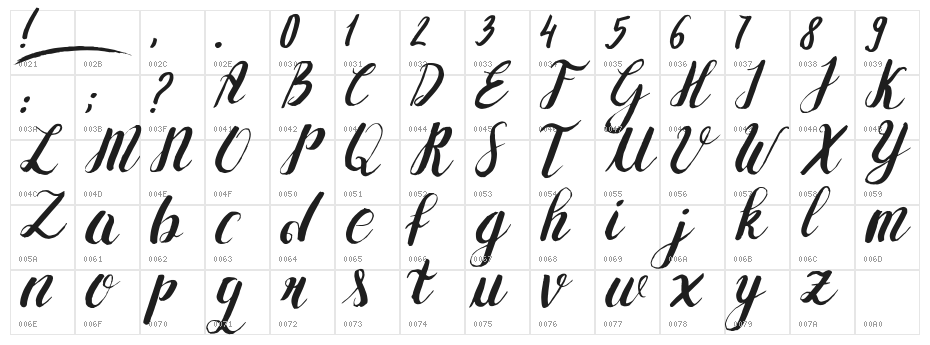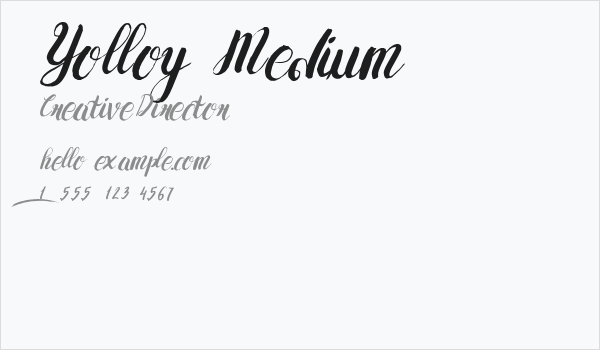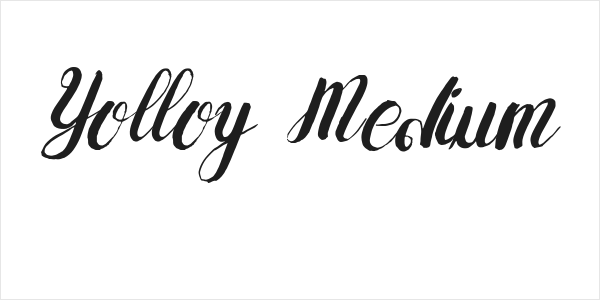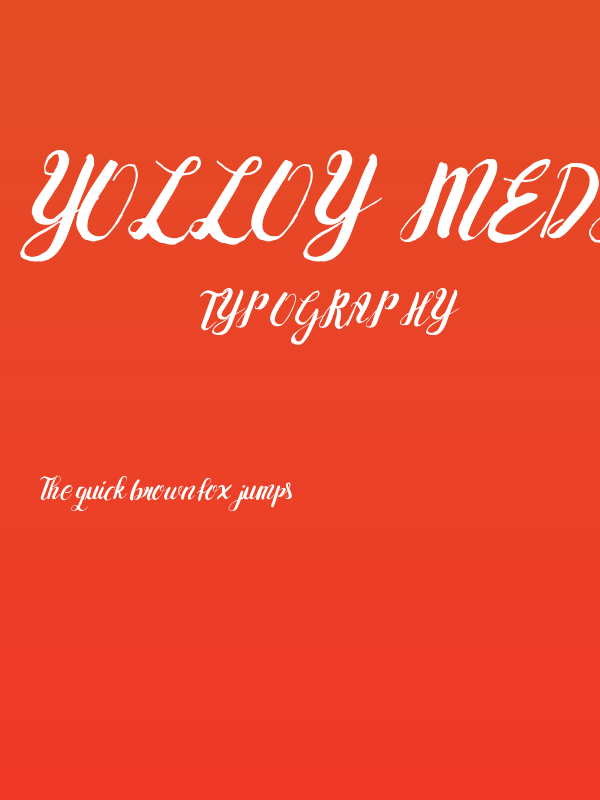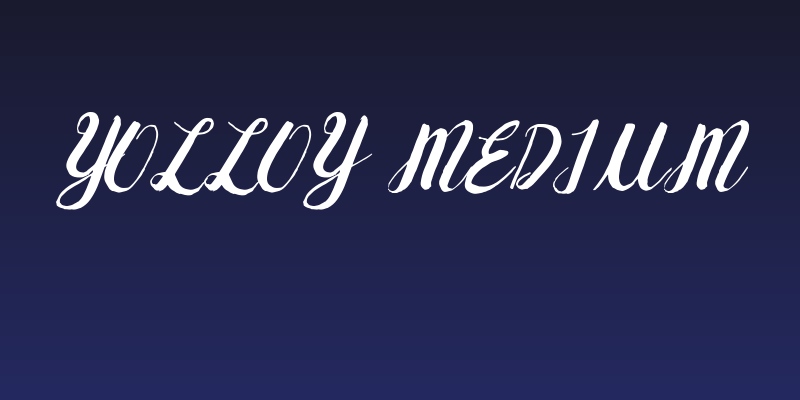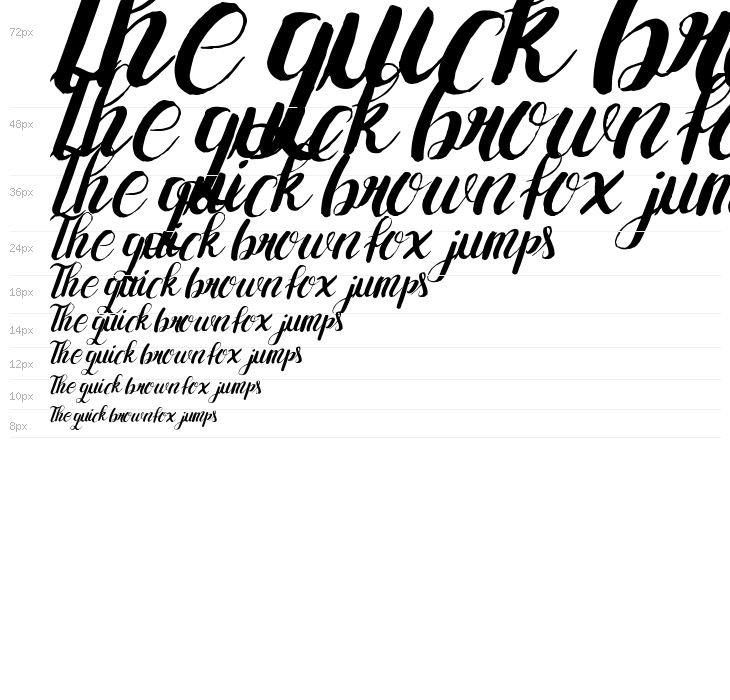
Yolloy-Medium Font
Yolloy-Medium Description
This font features a dynamic and flowing script style, characterized by its elegant, cursive letterforms. The uppercase letters are bold and sweeping, with a distinct slant that adds a sense of motion and grace. The lowercase letters maintain this fluidity, with smooth connections between characters that enhance readability while preserving an artistic flair. The numerals are consistent with the overall style, offering a harmonious blend of curves and angles. Special characters are designed with the same attention to detail, ensuring they integrate seamlessly with the rest of the font. This font's expressive nature makes it ideal for creative and decorative applications.
| Proposed Projects | Ideal for wedding invitations, greeting cards, branding, and decorative signage. |